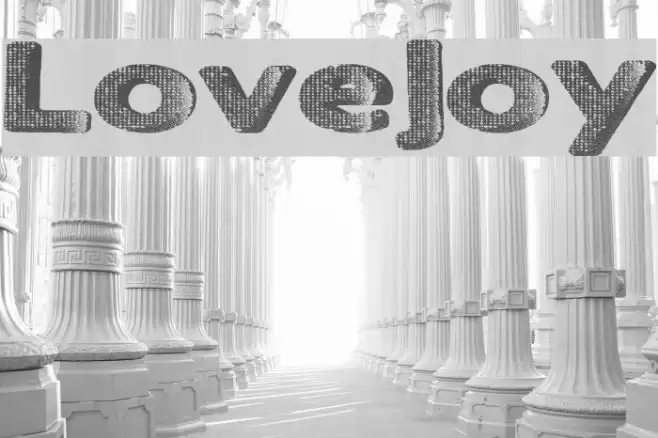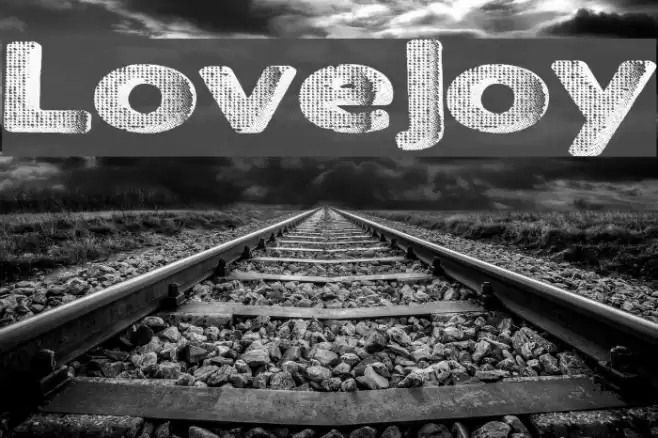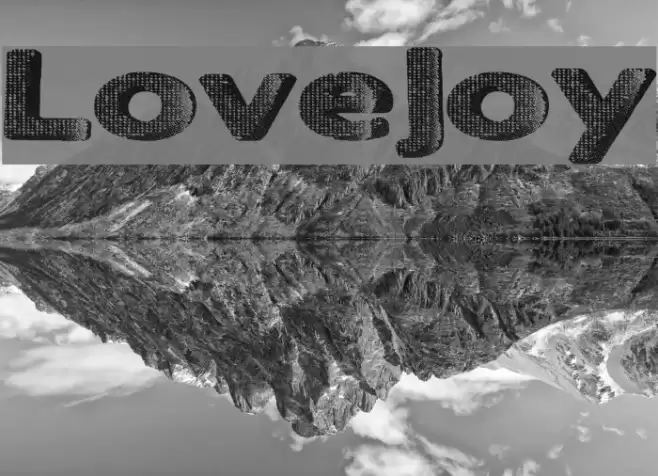
LoveJoy Font
LoveJoy Description
This font features a bold, textured style with a distinct halftone pattern that gives it a retro, vintage feel. The characters are rounded and slightly condensed, providing a playful yet sturdy appearance. The uppercase and lowercase letters maintain a consistent style, with a unique texture that adds depth and visual interest. The numerals and special characters follow the same design, making the font versatile for various uses. Its bold presence makes it ideal for eye-catching designs, while the textured detail adds a layer of sophistication.
A bold, textured font with a retro halftone pattern and rounded characters from Distorted Eroded fonts.
- Font: LoveJoy
- Proposed Projects: Ideal for vintage-themed posters, retro branding, eye-catching headlines, and artistic designs.
- Overall Style: Vintage